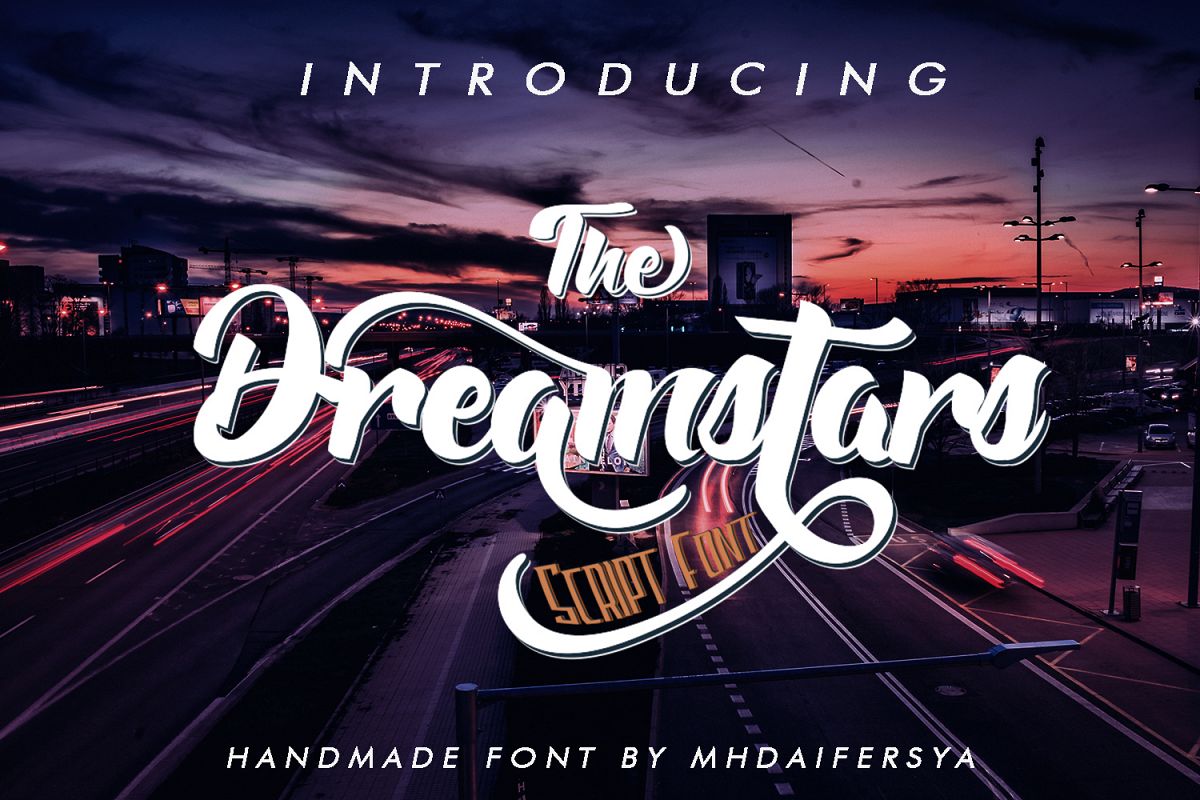
The Dreamstars
The Dreamstars Script is Modern bold script. Hunters is a logotype font with smooth curves so this font is great for Branding, Logo Design, Lettering,Logotype, Clothing, Poster, magazine and other design project.What's Includes:
• Opentype Features (Ligature, Alternate, Swash, Stylistic Set)
• Multilingual Support AÀÁÂÃÄÅCÇDÐEÈÉÊËIÌÍÎÏNÑOØÒÓÔÕÖUÙÜÚÛWYÝŸỲŸÆŒßÞþ